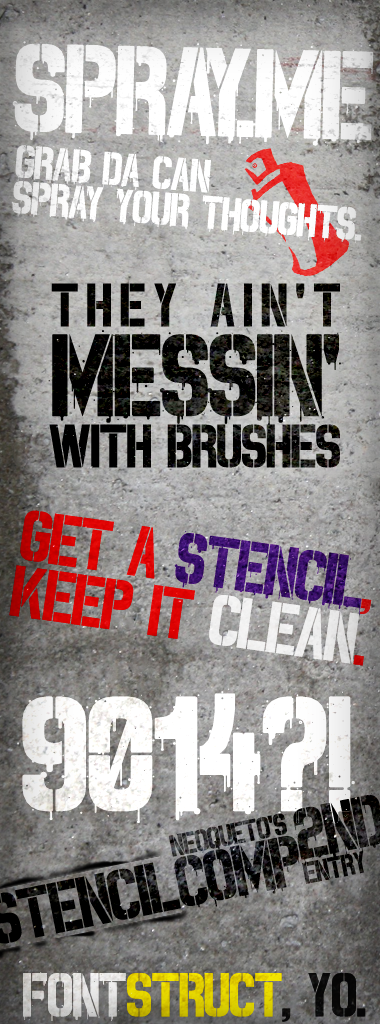
• Spray.ME is a classic stencil typeface, a bit inspired by Impact, but with a little twist. Hold Shift while typing for a dirty effect of fresh paint dripping from the letters. Stains, splatters - just like it was sprayed a few seconds ago. "!" hides behind "\" and "|".
I realize that there are tiny holes scattered over letters with the paint effect, if this font is going to be disqualified for that, I can remove them. :3
Ah - there's a tiny spray can dingbat!
Wow, excellent work on the spray effect and good sample, the little spraycan is classic! Hope you'll get away with the holes, having an alternative 'clean' version as well. 10/10+fav
I've got rid of those little circles completely, they weren't necessary after all. I think I'll keep the current sample pic.
I've just seen this font. Simply superb. The drips really make it an amazing stencil.
Late to the party but I love it. Could A crossbar be lowered? Anyway 10/10!
Neat! I like how you even included the dripping effects of the letters in the Capital Letters. :D